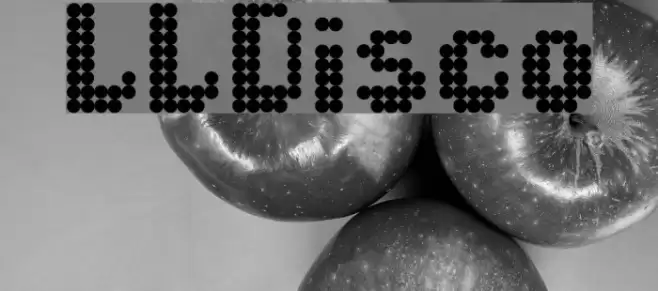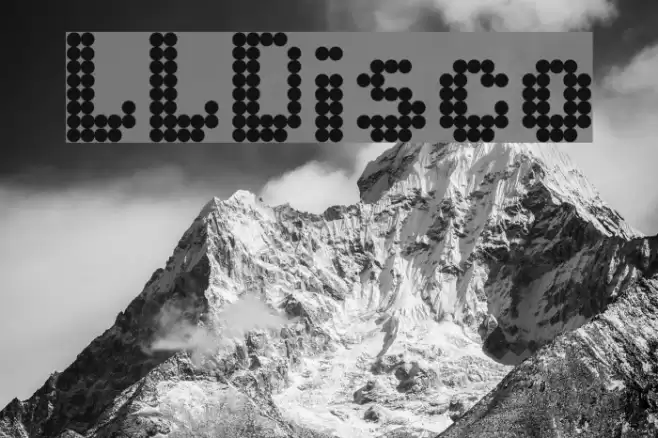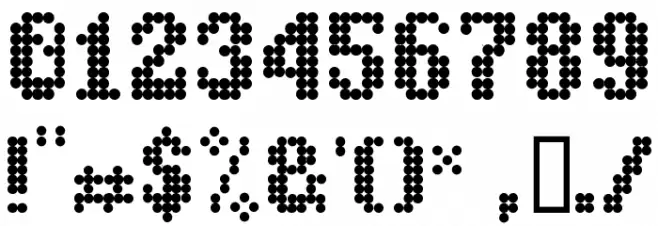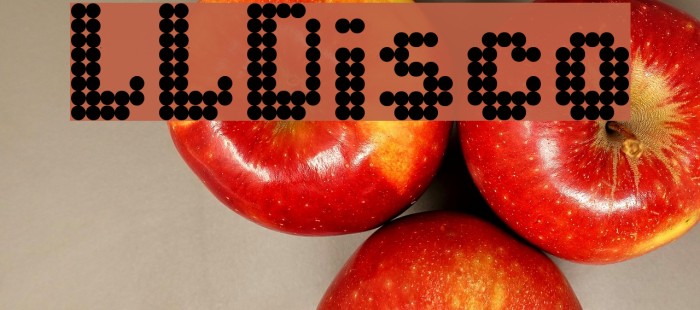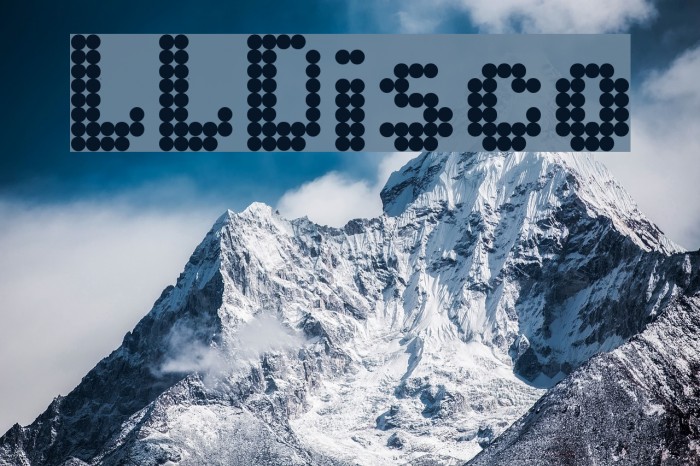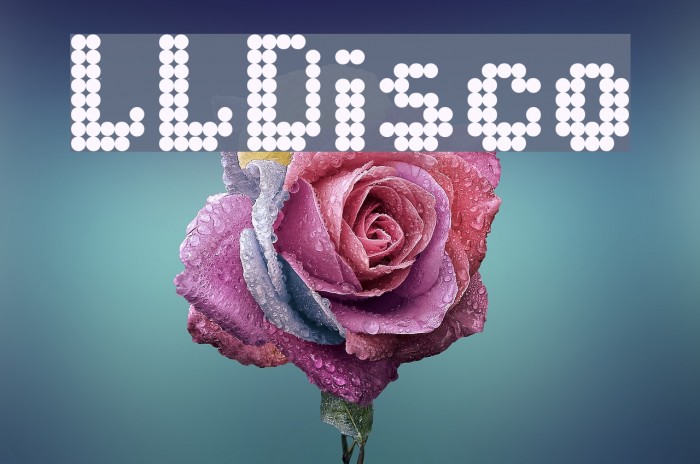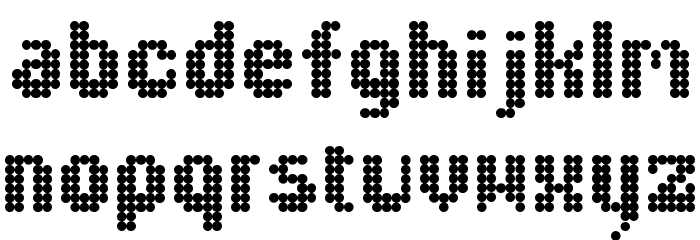
LLDisco Font
LLDisco Description
This font is a playful and bold display typeface composed entirely of small, evenly spaced dots. Each character is formed by a grid of dots, creating a pixelated effect that is both retro and modern. The uppercase and lowercase letters maintain a consistent style, with rounded edges and a uniform dot size. Numbers and special characters follow the same design principle, ensuring a cohesive look across all elements. The font's unique appearance makes it stand out, ideal for projects that require a fun and eye-catching aesthetic.
A bold, dotted display font with a playful, pixelated style from Futuristic fonts.
- Proposed Projects: Perfect for retro-themed designs, party invitations, digital art projects, and any creative work that requires a unique, eye-catching typeface.